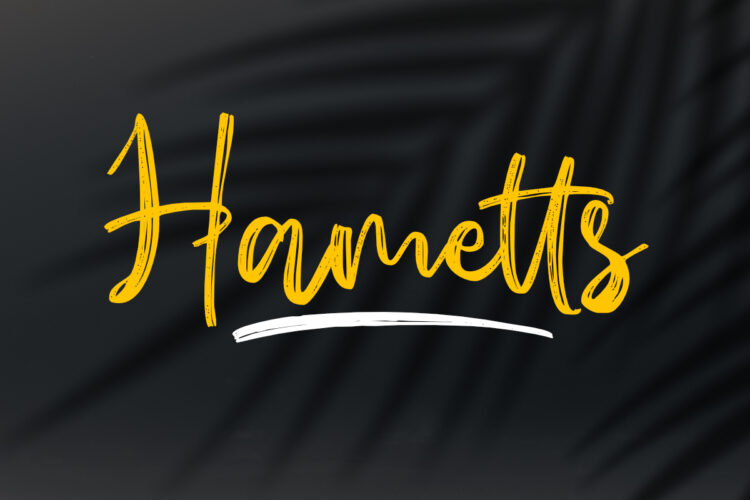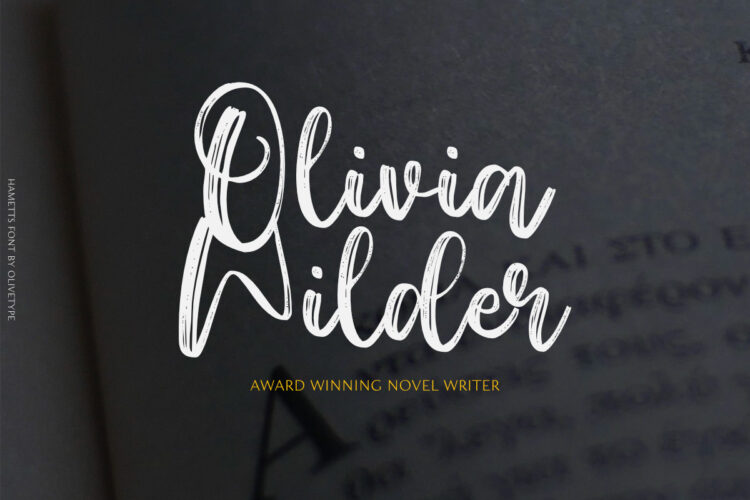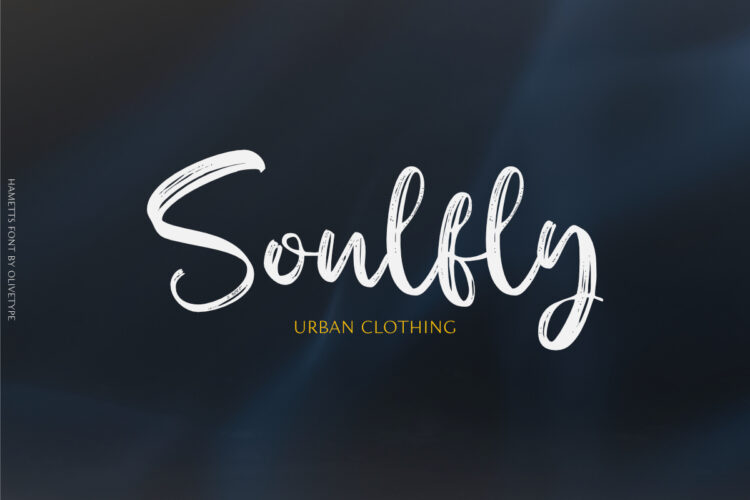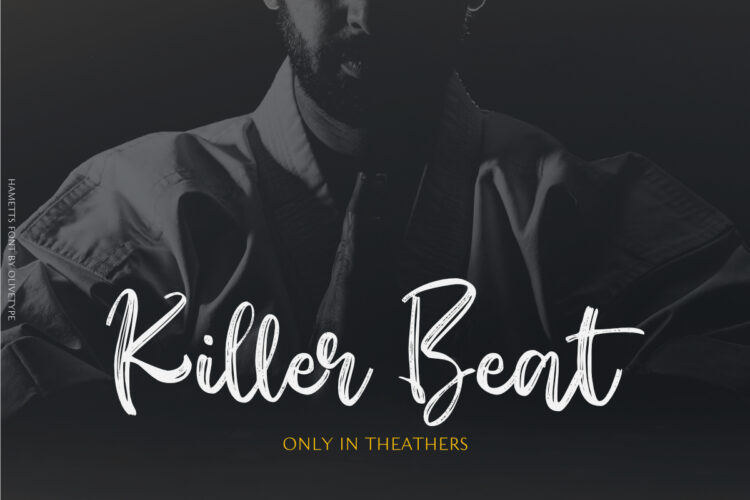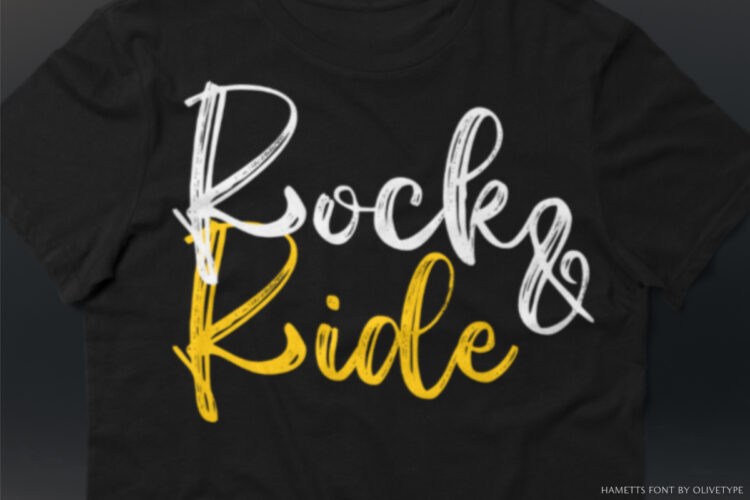
Hametts is a dazzling brush script font. This font is neatly crafted and highly detailed. The texture looks cool and authentic, suitable to enhance the quality of each of your posters, flyers, or print
- Basic Latin A-Z, a-z, numbers, symbols, and punctuations
- Ligatures and Swashes